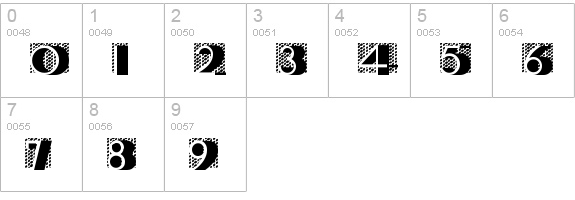
Le Film Classic Font Details
Le Film Classic font is a timeless and elegant typeface that exudes the charm of vintage movie posters. With its bold and striking letterforms, this font captures the essence of the golden age of cinema, transporting you back to the glamour and excitement of the big screen. The Le Film Classic font is a versatile typeface that can be used for a variety of design projects, including movie posters, title sequences, book covers, and more. Its carefully crafted details and intricate curves make it a standout choice for designers looking to add a touch of nostalgia and sophistication to their work. One of the best things about Le Film Classic font is that it is available for free download at FontsMarket.com. This means that you can easily access and use this stunning font without any cost. Whether you are a professional designer or a hobbyist, the availability of this font for free makes it an irresistible choice. With Le Film Classic font, you can effortlessly capture the spirit of classic cinema and bring a touch of vintage elegance to your designs. Its timeless appeal and freely accessible nature make it a must-have font for any designer's toolkit. So why wait? Head over to FontsMarket.com and download Le Film Classic font today to add a touch of old Hollywood glamour to your next project.